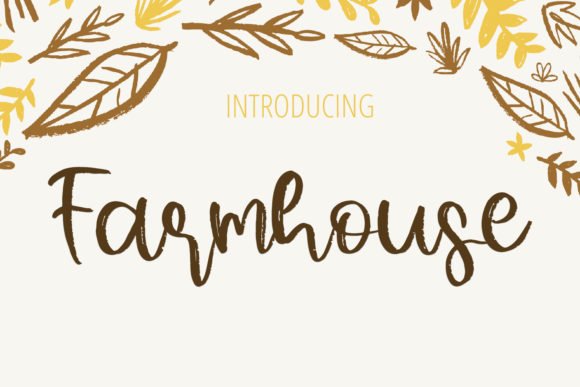
Discover the Timeless Charm of the Farmhouse Font
Have you ever been rummaging through a vintage thrift store, only to stumble upon an old family recipe scribbled in a beautiful, handwritten font? That’s the kind of creative moment that sparks our imagination and sets us on a quest for the perfect font to evoke the same feeling. For designers looking to add a touch of warmth and personality to their designs, look no further than the Farmhouse Font.
This sweet brushed handwritten font is a masterpiece of rounded letters and distinct charm. Whether you’re designing a wedding invitation, a food blog, or a rustic home decor website, the Farmhouse Font is the perfect choice. Its incredibly versatile style makes it a valuable asset for designers, allowing them to create spectacular designs that capture the essence of a bygone era.
Farmhouse Font Key Features
- Font Family: Farmhouse is a script font family designed by Jennifer Daniel, released by Font Squirrel in 2011.
- Unique Characteristics: Features a rustic, handwritten feel with a touch of elegance, making it perfect for creating a warm and inviting atmosphere in designs.
Farmhouse Font Review
I’ve had the chance to work with the Farmhouse Font, and overall, it’s a solid choice for many design projects. ✨ One of the things that really stands out is its warmth and coziness. It’s perfect for creating a welcoming atmosphere, especially in designs related to food, home decor, or rustic themes.
The font’s distressed texture adds a lot of character to any design, and its multiple weights make it versatile for different applications. ✨ Additionally, the font is well-suited for both digital and print use, which is a plus.
While the Farmhouse Font has its strengths, there are some limitations to be aware of:
- ⚠️ Limited language support, which may be a concern for international designs.
- ⚠️ The font’s distressed texture can be overpowering in some designs, making it difficult to read.
- ⚠️ Some characters may not be as smoothly rendered as others, which can affect overall quality.
In conclusion, the Farmhouse Font is a great choice for designs that need a warm, inviting feel. While it may have some limitations, its unique texture and multiple weights make it a versatile font that can add a lot of character to any project.
The Farmhouse Font is ideal for creating rustic, vintage, or country-themed designs. Use it for:
- Invitations and event decor
- Home decor and furniture designs
- Outdoor and nature-inspired designs